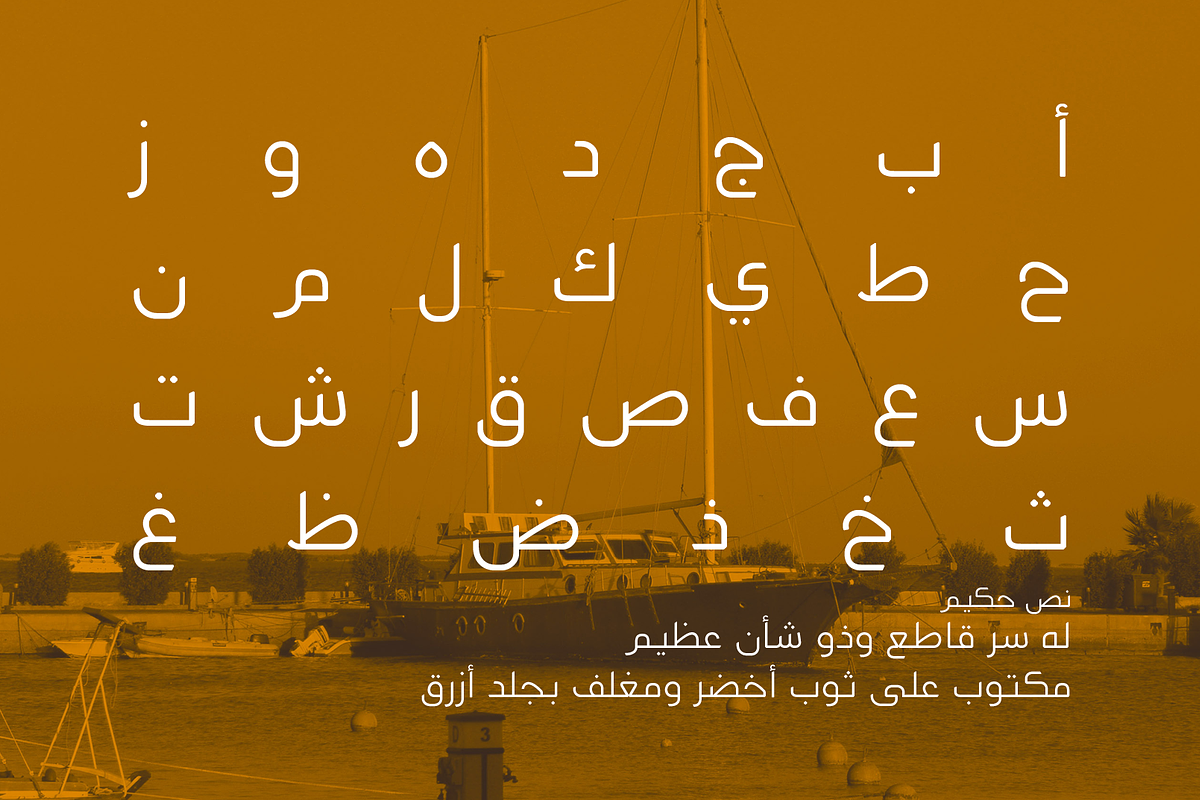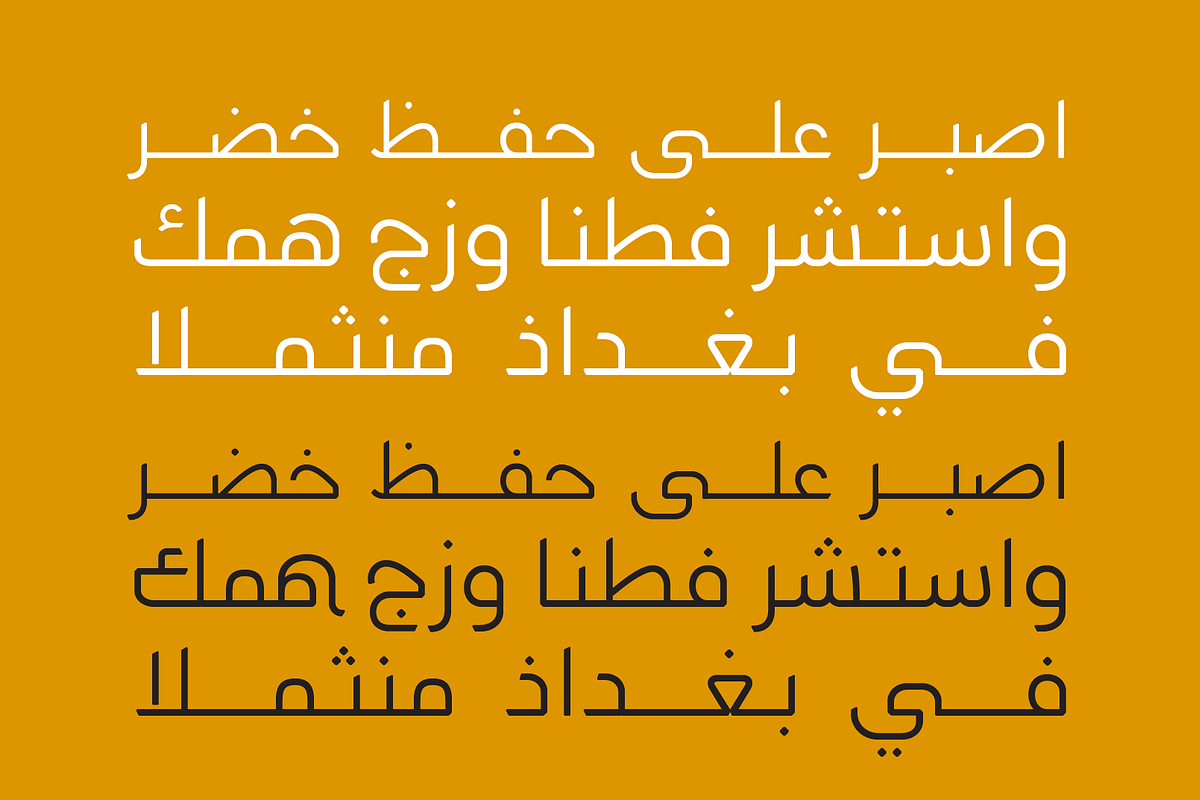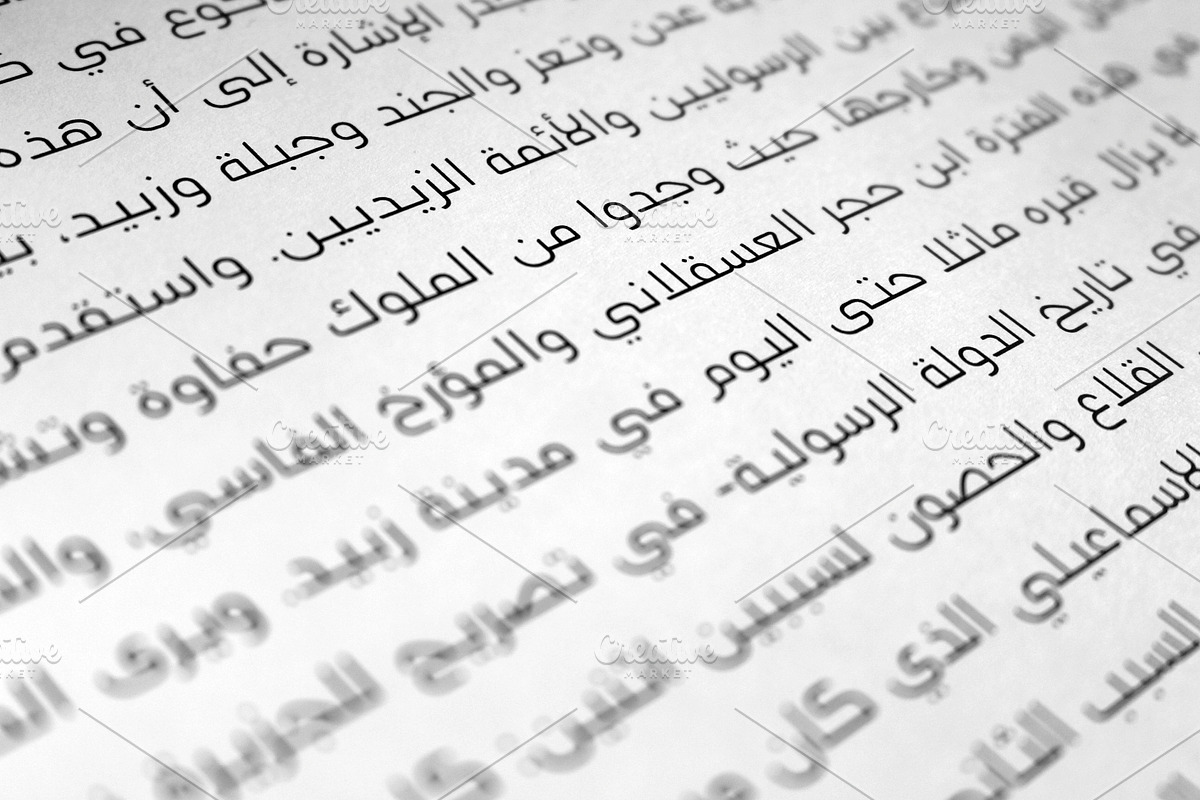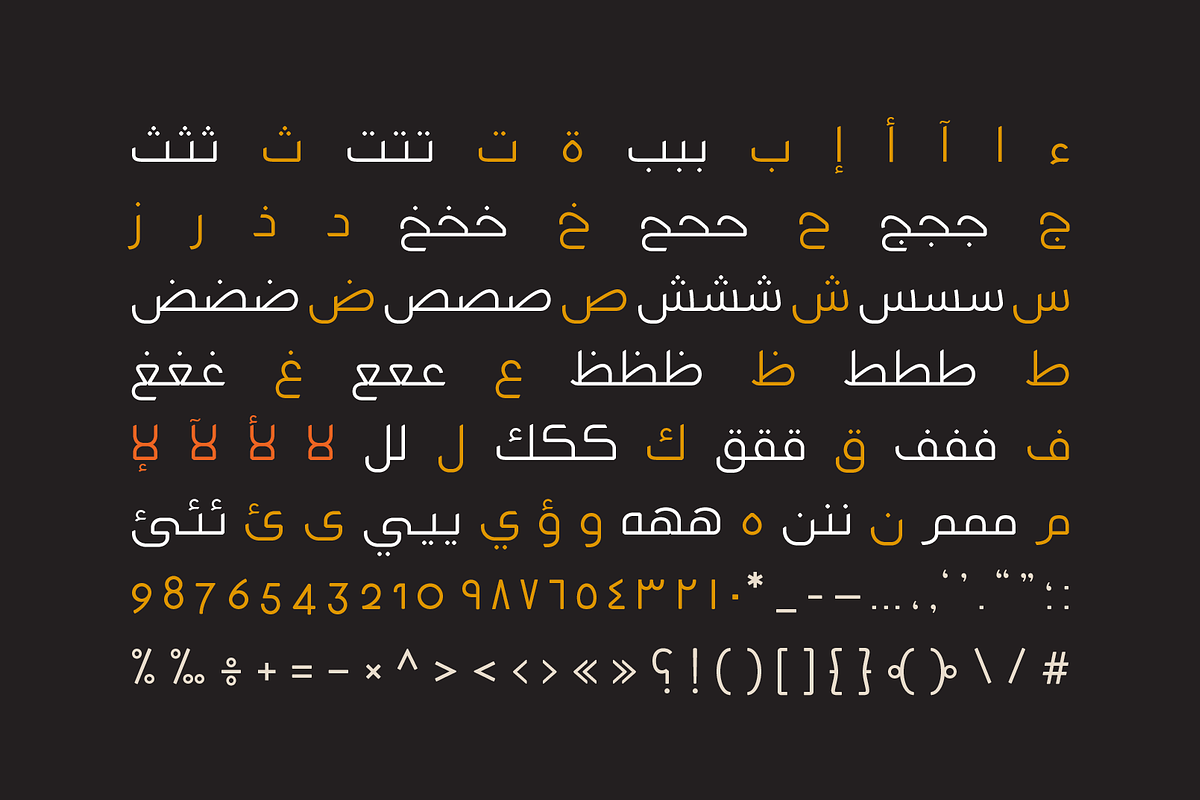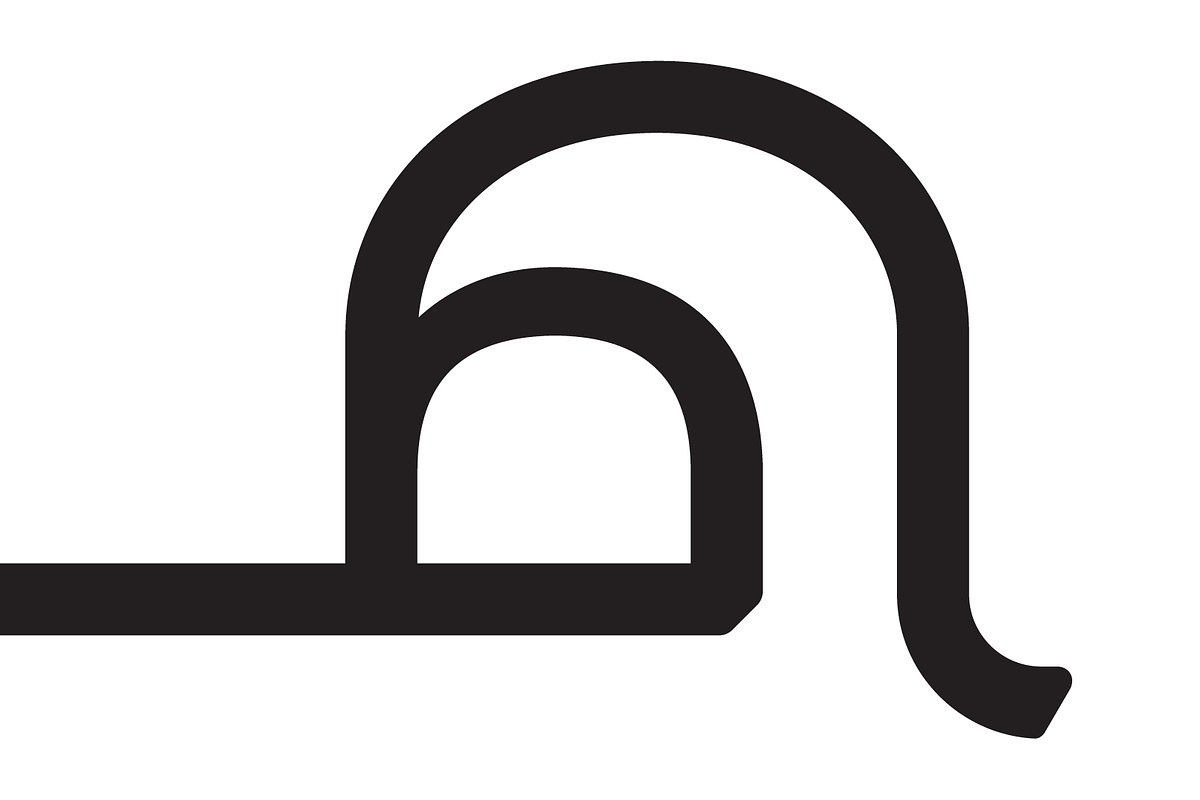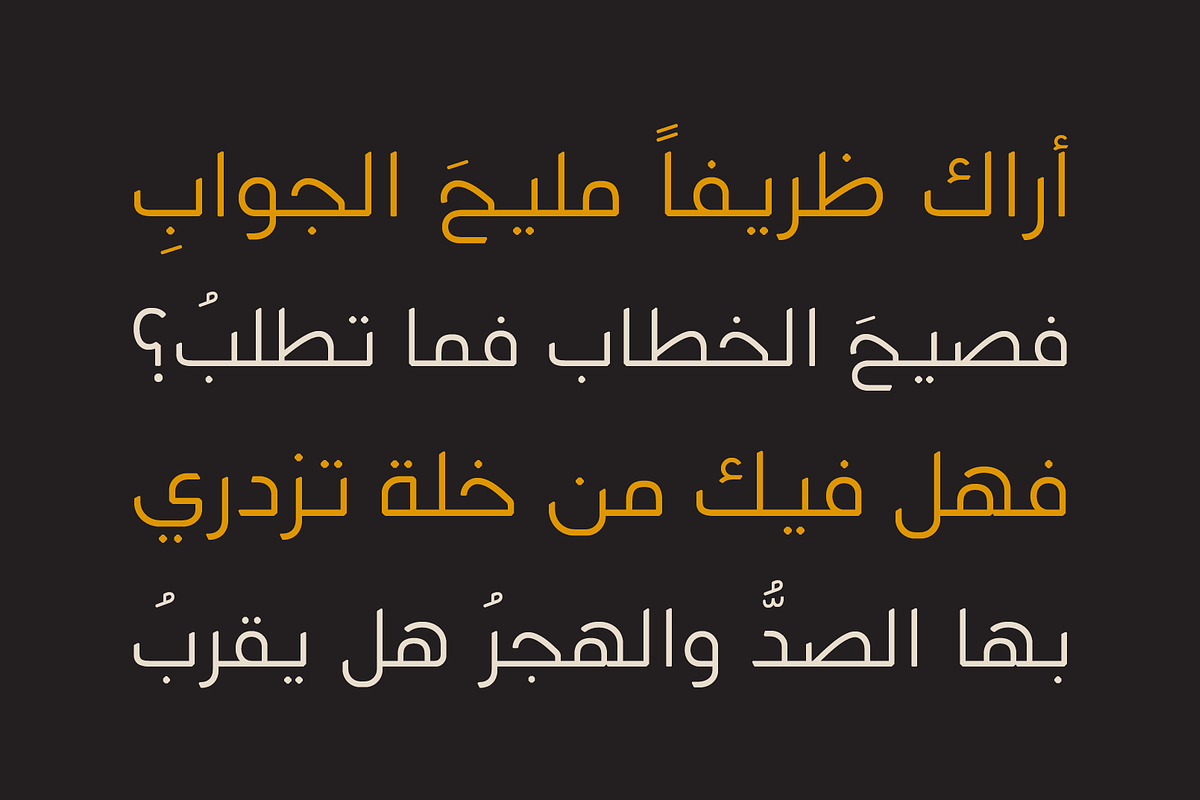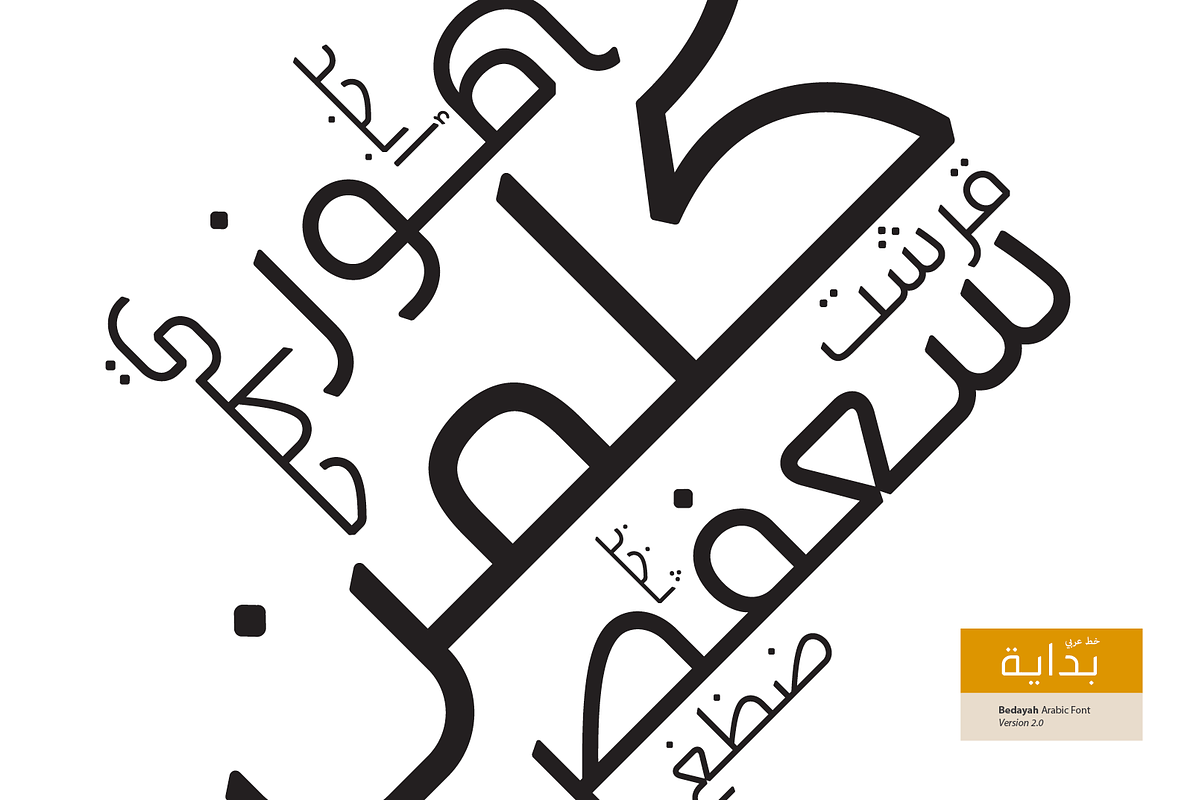
Bedayah - Arabic Font | خط بداية
Bedayah - Arabic Font | خط بداية by Mostafa El Abasiry is a font selected for branding, posters, packaging, typography.
Why Bedayah - Arabic Font | خط بداية is worth a look
Bedayah - Arabic Font | خط بداية by Mostafa El Abasiry fits naturally into Branding, posters, packaging, typography.